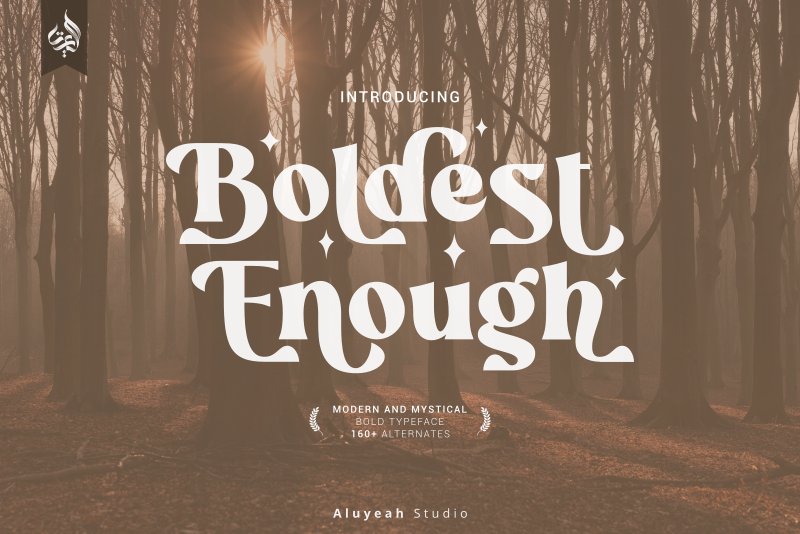
A Font by Aluyeah Studio To get results like the preview just type B.4ol.9d.2es.2t.2 E.4n.5ough.7 Boldest Enough, modern and mystical bold display typeface. Inspired by the mystical animation horror movie for kids. It gives you fear, curiosity, and amazement at the same time. Coming with 160+ stunning and super easy to use alternates. This version is a Personal to Use Only. If you wish to use it for commercial use, you need to purchase a license. Need for commercial use? https://aluyeah.com/product/boldest-enough/ Buy me a coffee? https://paypal.me/aluyeahstudio Email me support@aluyeah.com |